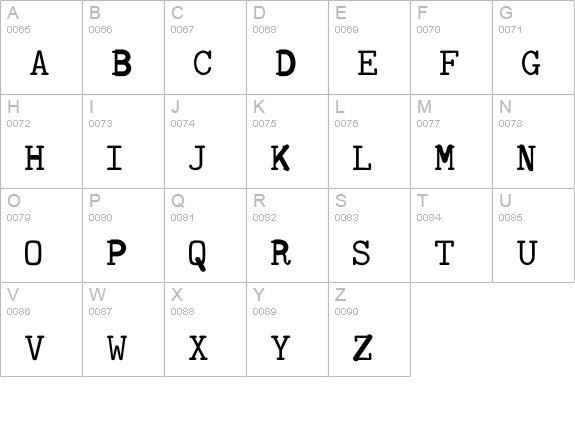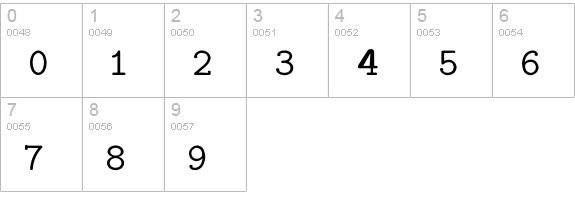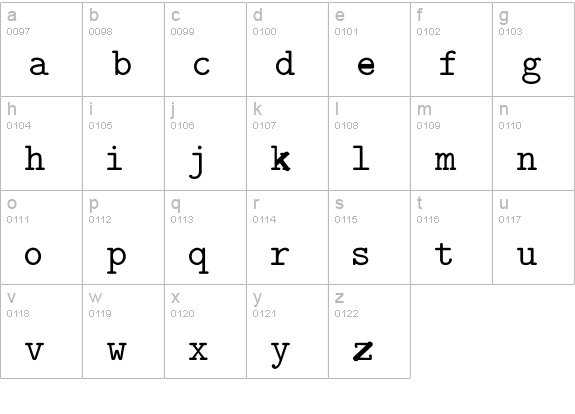
CM_Typewriter Regular is the standard, neutral variant in the CM_Typewriter typeface family \xE2\x80\x94 well suited to general body text, paragraphs, and standard typographic work.
CM_Typewriter Regular is a classic monospaced font that exudes a timeless charm and simplicity. With its clean lines and balanced letterforms, this font is perfect for creating a retro or vintage look in your designs. Whether you're working on a typewriter-inspired project or simply looking for a reliable and versatile typeface, CM_Typewriter Regular is sure to deliver. What's even better is that CM_Typewriter Regular is available for free download at FontsMarket.com. This means you can easily access this stylish font to enhance your creative projects without any cost. Don't miss out on the opportunity to add this elegant and functional typeface to your font collection today!